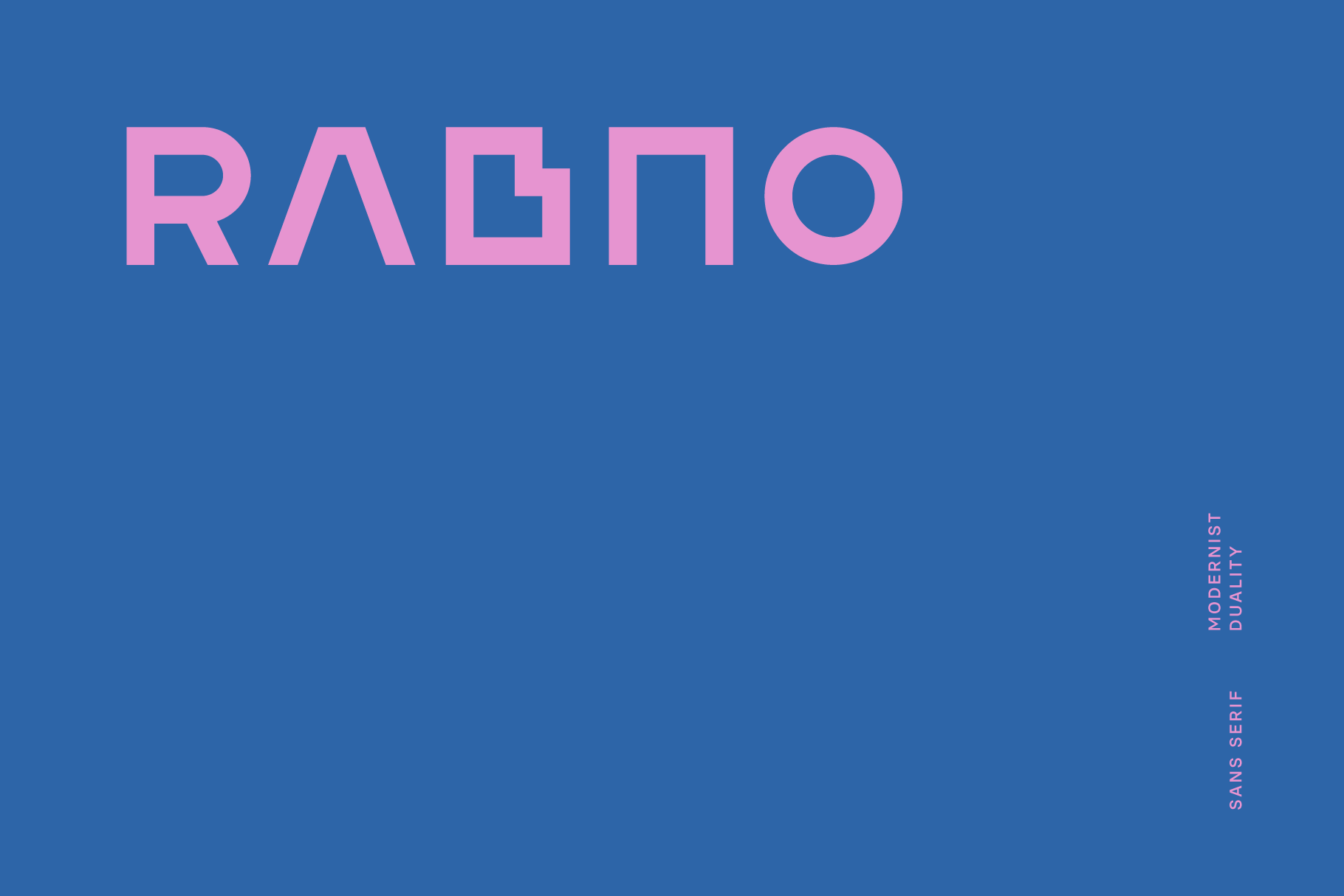
Rabno Font
Rabno is a modernist duality linear sans apt for headline, editorial, branding, packaging, printed materials and typographic applications. 150+ glyphs with ligatures, fractions and alternatives(supported by Illustrator, Photoshop & InDesign) provided in opentype .otf and .woff format.